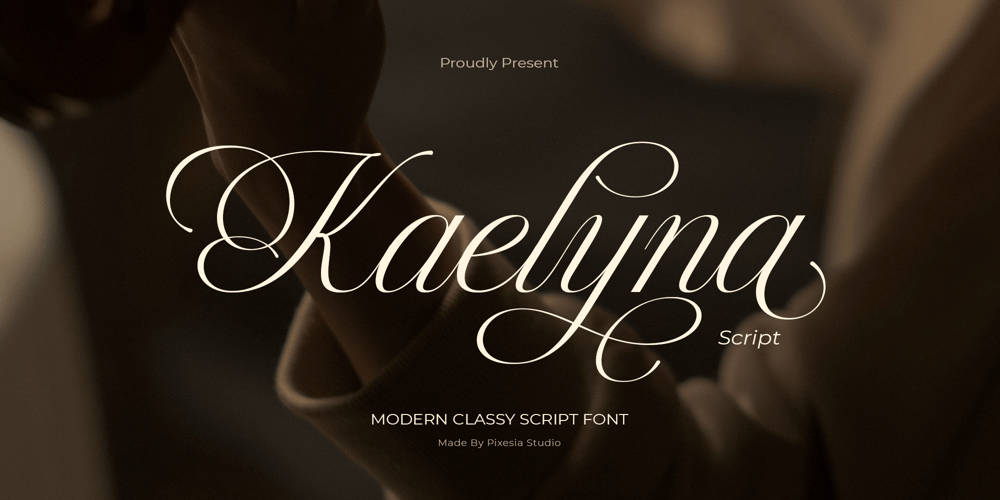
Kaelyna Script Font Family was designed by Abul Almaududi and published by Pixesia Studio. Kaelyna Script contains 1 styles and family package options. Introducing Kaelyna Script – Elegant Cursive Script FontKaelyna Script is a modern and elegant calligraphy font. With its flowing cursive style, this script adds a minimalist, luxurious and classy feel to any design project. Kaelyna Script is perfectly suited for branding, logotypes, wedding invitations, romantic quotes, labels, social media posts, advertisements, product packaging, product designs, apparel, label, photography, watermark, invitation, stationery and any projects seeking premium quality and luxury feel.FEATURES- Stylistic Alternates- Ligatures- Uppercase and Lowercase letters- Numbering and Punctuations- Works on PC or Mac- Simple Installation- PUA Encoded Characters – Easily accessible without additional design software.- Support Adobe Illustrator, Adobe Photoshop, Adobe InDesign, also works on Microsoft Word- Multilingual Support for 89 languages including Afrikaans, Albanian, Basque, Catalan, Danish, Dutch, English, Estonian, Faroese, Filipino, Finnish, French, Galician, German, Icelandic, Indonesian, Irish, Italian, Malay, Norwegian Bokmål, Portuguese, Spanish, Swahili, Swedish, Zulu.Hope you Like it.Thanks.